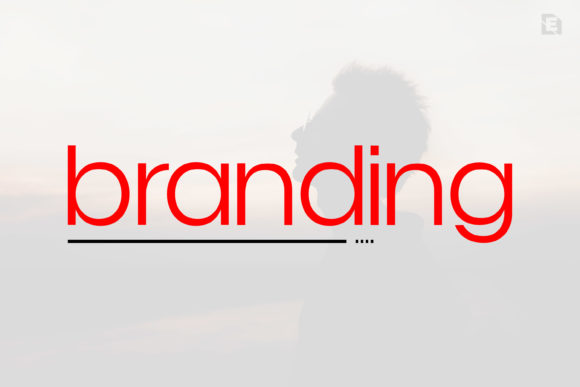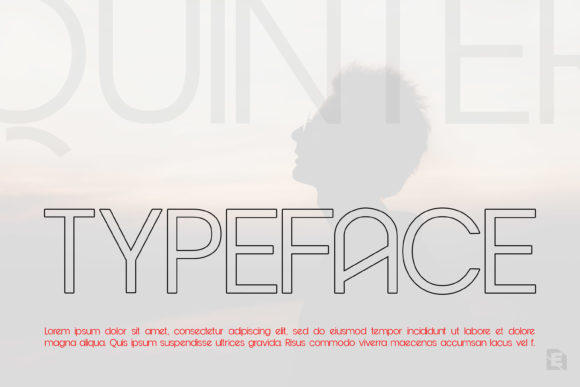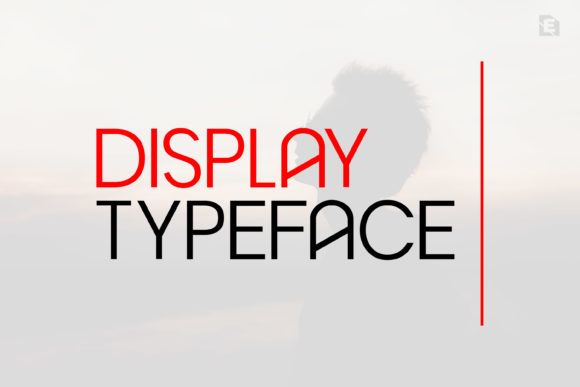
Introduction to Quinter Font
Have you ever found yourself staring at a blank canvas, wondering which font will bring your creative project to life? I know I have. It’s that moment of hesitation that can make or break the entire design process. But what if I told you there’s a font that’s as versatile as it is stunning? Welcome to the world of Quinter Font, a minimal and neat sans serif font that’s about to revolutionize the way you approach your design projects.
As a valuable design resource, Quinter Font offers a high-quality solution for designers looking to elevate their work. With its clean lines and transparent background, this font is the perfect addition to any creative project. And the best part? It’s available for free download, making it accessible to designers of all levels.
Whether you’re working on a branding project or a digital design, Quinter Font is sure to make your ideas stand out. Its simplicity and elegance make it an excellent choice for designers who value quality and precision in their work. So why settle for an ordinary font when you can have a game-changer like Quinter Font?
Key Features of Quinter Font
- Unique and modern design: The Quinter Font is a creative project that offers a fresh and modern take on traditional typography.
- High-quality design resource: This font is a valuable addition to any designer’s toolkit, offering a high-quality design resource for a variety of creative projects.
- Perfect for logo design, branding, and more: The Quinter Font is a versatile design resource that is perfect for use in logo design, branding, and a wide range of other creative projects.
Honest Review: Quinter Font
I recently stumbled upon the Quinter Font while searching for a high-quality design resource for my current creative project. I’m excited to share my thoughts on this versatile font.
- ✨ The Quinter Font boasts a unique and modern aesthetic, making it perfect for a wide range of creative applications.
- ✨ The transparent background option provides flexibility when working with graphics and other design elements.
Any limitations:
- ⚠️ The font may not be as comprehensive as some other commercial options, with a limited character set and no support for Cyrillic or other non-Latin scripts.
- ⚠️ The Quinter Font is a more stylized font, which may not be suitable for projects requiring a more traditional or formal tone.
Overall impression: The Quinter Font is a solid addition to any designer’s toolkit. While it may have some limitations, its unique style and free availability make it a great resource for creative projects. With some careful planning and consideration, I think this font can be a valuable asset for designers of all levels.